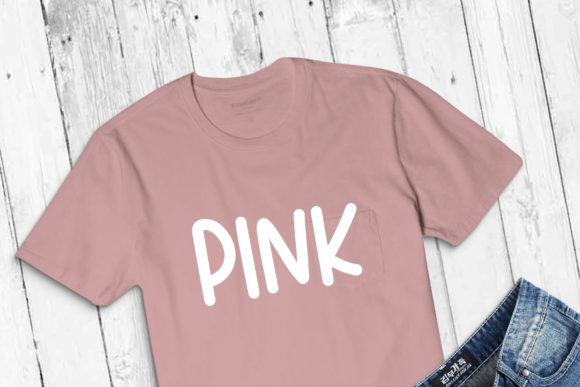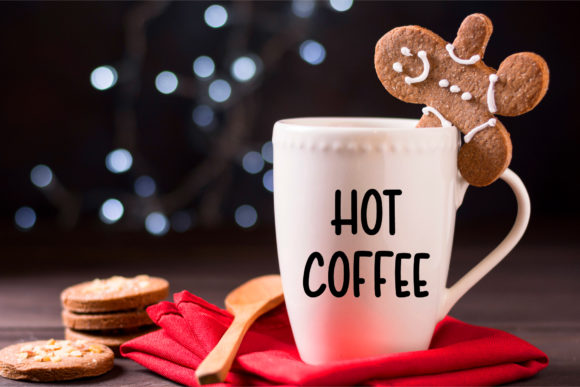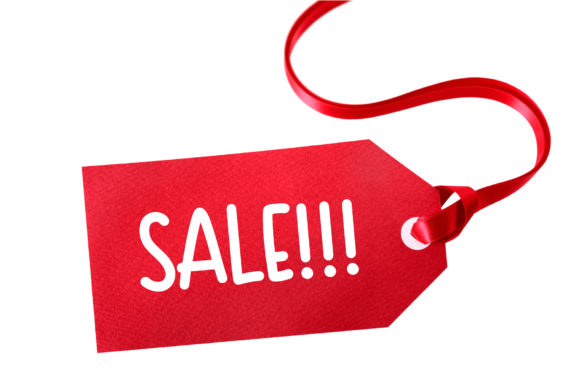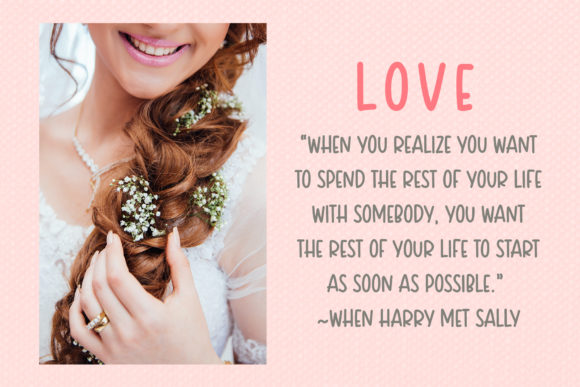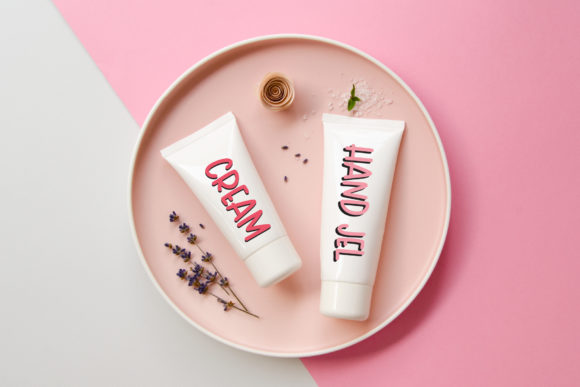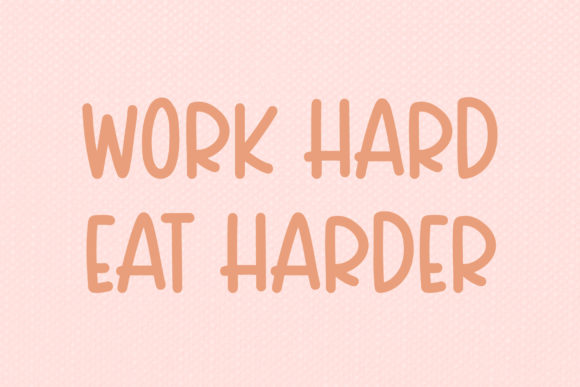
Don’t Worry Be Happy Font: The Perfect Addition to Your Design Arsenal
Are you tired of using the same old fonts for your design projects? Look no further than the Don’t Worry Be Happy font! This cute and friendly display font is sure to bring a touch of whimsy and personality to any project. In this article, we’ll take a closer look at the Don’t Worry Be Happy font, its features, and how you can use it to elevate your designs.
What is Don’t Worry Be Happy Font?
Don’t Worry Be Happy is a playful and quirky display font that’s perfect for designers and crafters looking to add a bit of fun to their projects. With its friendly and approachable vibe, this font is ideal for logos, branding, posters, and crafty DIY projects. Whether you’re designing a logo for a new business or creating a poster for a social event, Don’t Worry Be Happy is sure to make your project stand out.
Key Features of Don’t Worry Be Happy Font
So, what makes Don’t Worry Be Happy font so special? Here are just a few of its key features:
- Playful and Quirky: Don’t Worry Be Happy font has a fun and playful vibe that’s perfect for designers who want to add a bit of personality to their projects.
- Cute and Friendly: This font has a friendly and approachable feel that’s sure to make your project stand out.
- Display Font: Don’t Worry Be Happy is a display font, making it perfect for headlines, titles, and other large-format text.
- Versatile: This font can be used for a wide range of projects, from logos and branding to posters and crafty DIY projects.
How to Use Don’t Worry Be Happy Font
Now that we’ve covered the features of Don’t Worry Be Happy font, let’s talk about how to use it. Here are a few ideas to get you started:
- Logos and Branding: Use Don’t Worry Be Happy font to create a fun and playful logo for your business or brand.
- Posters and Flyers: Add a bit of whimsy to your posters and flyers with this fun and quirky font.
- Crafty DIY Projects: Use Don’t Worry Be Happy font to add a personal touch to your crafty DIY projects, such as scrapbooking, card making, and more.
- Social Media Graphics: Use this font to create eye-catching social media graphics that are sure to grab attention.
Tips for Using Don’t Worry Be Happy Font
Here are a few tips to keep in mind when using Don’t Worry Be Happy font:
- Use it sparingly: Because Don’t Worry Be Happy font is a display font, it’s best to use it sparingly. Use it for headlines and titles, but stick to a more traditional font for body text.
- Pair it with other fonts: Don’t be afraid to pair Don’t Worry Be Happy font with other fonts to create a unique and interesting look.
- Experiment with colors: Don’t Worry Be Happy font looks great in a variety of colors, so don’t be afraid to experiment and find the perfect color for your project.
In conclusion, Don’t Worry Be Happy font is a fun and playful display font that’s perfect for designers and crafters looking to add a bit of personality to their projects. With its cute and friendly vibe, versatile design, and wide range of uses, this font is sure to become a staple in your design arsenal. So why wait? Download Don’t Worry Be Happy font today and start creating!
- What type of font is Don’t Worry Be Happy? Don’t Worry Be Happy is a display font.
- What is Don’t Worry Be Happy font best used for? Don’t Worry Be Happy font is best used for logos, branding, posters, and crafty DIY projects.